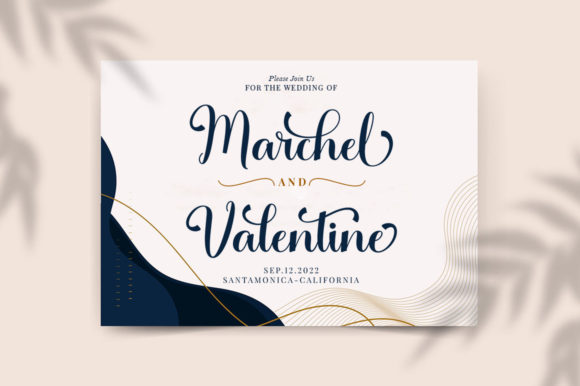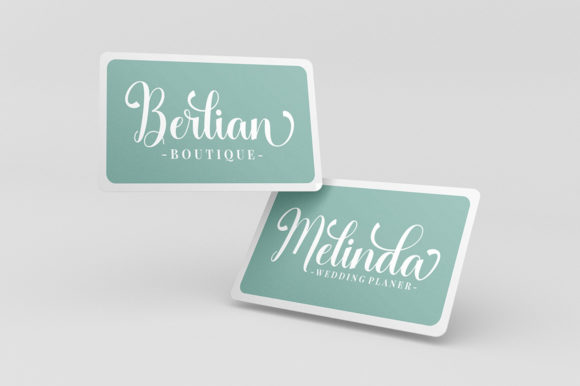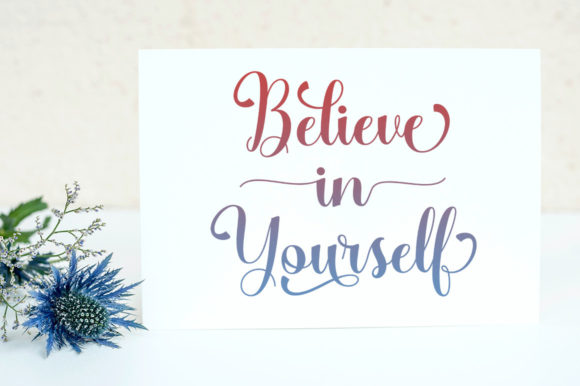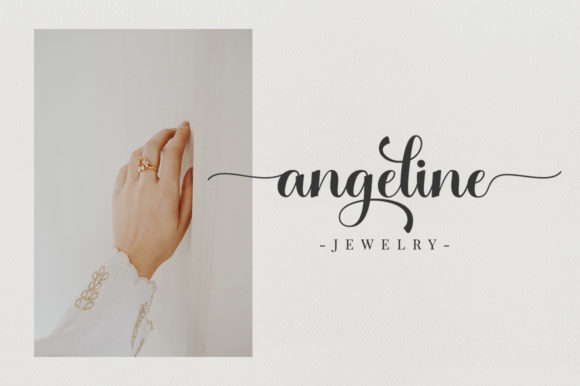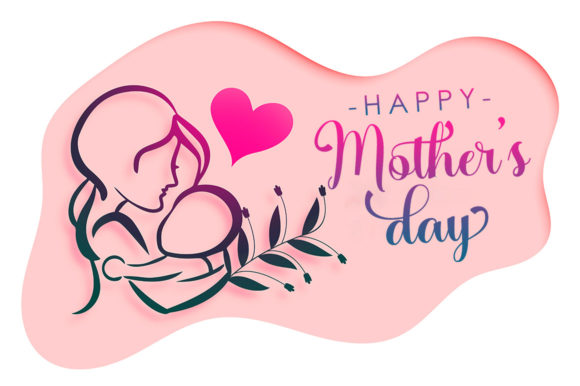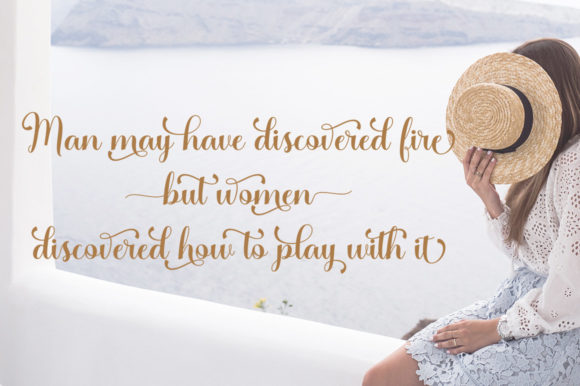
Hello Balgetia Font
About Hello Balgetia Font
Hello Balgetia is a ravishing handwritten font with a unique feel and a stunning impact. It will add a luxury spark to any design project that you wish to create! This font is PUA encoded which means you can access all of the amazing glyphs and ligatures with ease!